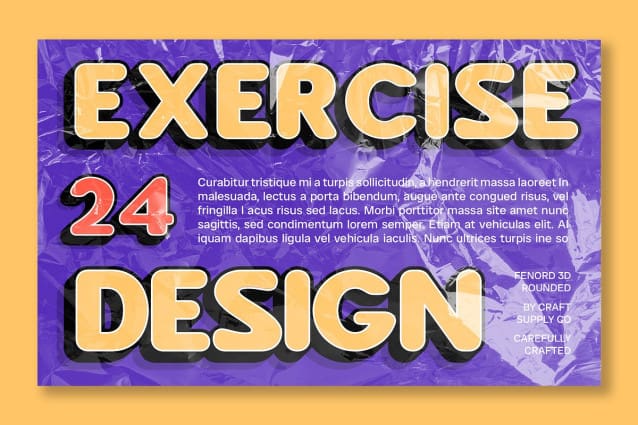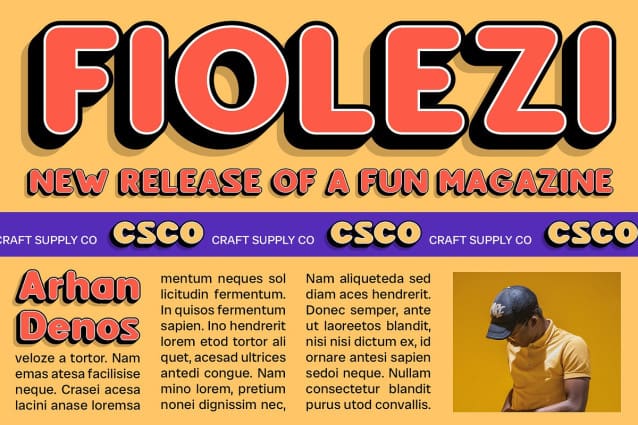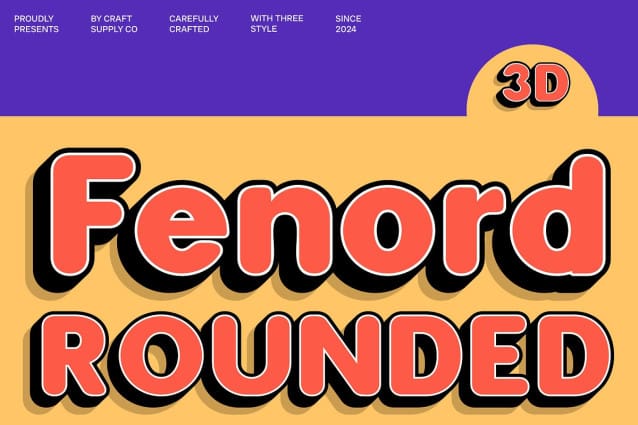
Fenord Rounded 3D Font
Fenord Rounded 3D Font is a modern sans-serif font that combines bold, rounded shapes with an old-school vibe. Its chunky, rounded forms evoke a cute and friendly feel, perfect for playful branding and retro-themed designs.
Nostalgic Aesthetics with a 3D Twist Experience the blend of retro charm and contemporary flair with Fenord Rounded 3D. The font’s 3D effect adds depth and visual interest, enhancing its nostalgic appeal with a modern twist. This dynamic combination makes it ideal for eye-catching promotional materials.
Versatile for Playful and Retro Designs Fenord Rounded 3D shines in a variety of applications, from playful branding and retro-themed designs to engaging promotional materials. Its bold, rounded forms and 3D effect ensure it stands out with both nostalgic charm and modern sophistication.
Elevate Your Design Add a touch of retro flair and modern depth to your projects with Fenord Rounded 3D. Its blend of chunky, rounded shapes and engaging 3D effects makes it the perfect choice for designs that need a unique, eye-catching appearance.